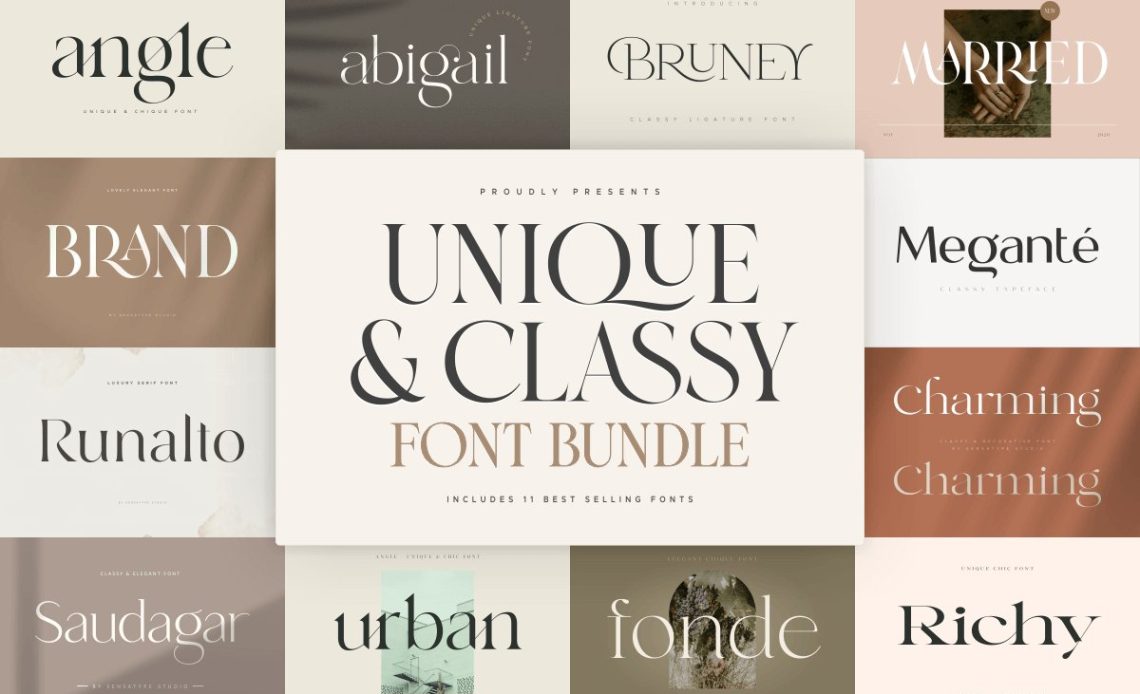
Looking for a unique and classy font bundle for your next branding or logo design project? Look no further than Muhammad Zamroni Hamzah's 11 in 1 Unique and Classy Modern Font Bundle! This bundle includes some of our best-selling fonts, such as Abigail, Angle, Brand, Bruney, Runalto, Richy, Charming (Font Duo), Saudagar, Megante, and Fonde. Each font is carefully crafted to be both elegant and eye-catching, making your designs stand out from the crowd.
As graphic designers who have worked with many companies, we understand the importance of creating a unique style that exudes class. That's why we've developed this bundle, to help you achieve the perfect balance of uniqueness and elegance in your designs. Our fonts are perfect for branding and logo design, as they give your projects a distinctive look that's sure to make an impact.
Our fonts feature both uppercase and lowercase letters, as well as multilingual characters, numerals, and punctuations. This means you can use them for a variety of projects, from posters and flyers to social media graphics and website design.